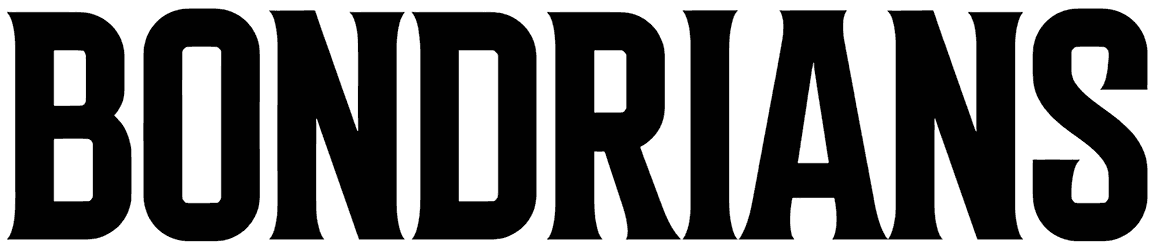
Bondrians Font
This time, you can design your text with a nostalgic style. Bondrians is a serif font with a clean and strong mood and will be a nice promotion for numerous designs, such as flyers, magazines, foregrounds, and along with…
This time, you can design your text with a nostalgic style. Bondrians is a serif font with a clean and strong mood and will be a nice promotion for numerous designs, such as flyers, magazines, foregrounds, and along with others. As a versatile barbershop font, Bondrians doesn’t support lowercase letters, but is still one of your attractive options for many subjects.